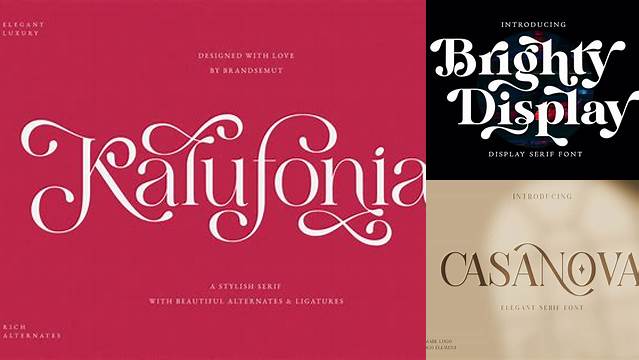
Free Display Serif Fonts: Download & Design Guide
Are you ready to elevate your design game, guys? Today, we're diving headfirst into the world of display serif fonts! And the best part? You can find these beauties with a free download. Forget generic fonts; these are the stars of the show, designed to grab attention and make your text pop. From bold headlines to elegant titles, display serifs bring a touch of sophistication and personality that's hard to beat. So, buckle up, because we're about to explore the best display serif fonts available for free download, perfect for everything from posters to websites.
Exploring the World of Display Serif Fonts: A Deep Dive
Display serif fonts are specifically crafted for larger sizes, perfect for headlines, titles, and short bursts of text. Unlike their text-friendly counterparts, display serifs often boast unique features, exaggerated serifs, and a strong visual impact. These fonts are not designed for lengthy paragraphs; their primary function is to command attention. Imagine a sleek poster, a captivating website header, or a magazine cover that immediately draws the eye. That's the power of a well-chosen display serif. Their design is often bolder and more stylized than standard serif fonts, making them ideal for creative projects where visual impact is crucial. Think of them as the statement pieces in your typography wardrobe. When choosing a display serif, consider the overall tone and message you want to convey. A classic, elegant serif might be perfect for a luxury brand, while a more modern, geometric serif could be ideal for a tech startup. The possibilities are endless, and the right font can significantly enhance your design's appeal. And now, let's talk about how to get your hands on these gems through a free download. Many websites offer a wide variety of display serif fonts, often available for both personal and commercial use. Always double-check the license agreement to ensure you're using the font correctly. Some fonts may require attribution, while others are completely free to use. The key is to find a font that aligns with your project's aesthetic and licensing requirements, then add it to your collection and get ready to see your designs transform. Display serifs are all about making a statement. Get ready to find your perfect font, download it, and watch your designs shine!
Display Serif Font Characteristics: What Sets Them Apart
What makes a display serif font stand out from the crowd? Several key characteristics define these fonts, making them ideal for attention-grabbing headlines and striking visuals. First and foremost, display serifs are designed for larger sizes. This means they often feature bolder strokes, more pronounced serifs, and greater contrast between thick and thin lines. The goal is to ensure readability and impact, even at a glance. The serifs themselves are often more elaborate than those found on text fonts. You might see flared serifs, slab serifs, or unique terminal designs that add a touch of personality and style. These features help to create a distinct visual identity and make the font memorable. Another important characteristic is the overall design concept. Display serifs often reflect a specific aesthetic or mood. Some fonts exude elegance and sophistication, while others lean towards modern, minimalist, or even quirky styles. This diversity allows designers to choose a font that perfectly matches their project's tone and message. The weight of the font is also a significant factor. Many display serifs are available in a range of weights, from light and delicate to bold and heavy. The choice of weight can dramatically affect the font's impact. A bold weight commands immediate attention, while a lighter weight can create a more subtle effect. Finally, the kerning and spacing are crucial. Display serifs require careful attention to letter spacing to ensure optimal readability at large sizes. The designer aims to create a font that is visually appealing and easy to read. Understanding these characteristics will help you choose the perfect display serif font for your project. Always consider the specific design requirements and your desired effect.
Using Display Serif Fonts Effectively in Design
Using display serif fonts effectively requires a strategic approach to design. Think about your design's purpose and target audience before selecting a font. A display serif that works well for a luxury brand might not be the right choice for a children's website. The most common application for display serifs is in headlines, titles, and subheadings. Their bold presence and unique design make them perfect for grabbing attention and conveying important information. Make sure your headlines are clear and easy to read. While display serifs can be visually striking, prioritize legibility. Avoid using overly complex fonts that can be difficult to decipher. Display serifs can also be used for short blocks of text, such as call-to-action buttons, short descriptions, or website taglines. Their distinctive style can add a touch of personality and make your design more memorable. However, it's important to limit their use in body text. Display serifs are often less readable than text fonts when used in long paragraphs, so it's best to use them sparingly. Consider pairing your display serif with a complementary text font. The contrast between a bold display serif and a clean, readable text font can create a visually appealing and balanced design. Experiment with different font pairings to find the perfect combination for your project. And of course, always pay attention to spacing and kerning. Proper spacing ensures readability and visual appeal. Adjust the letter spacing as needed to create a clean and professional look. Display serifs, when used thoughtfully, can be a powerful tool in your design arsenal. They can add a touch of sophistication, personality, and visual impact to your project.
Display Serif vs. Text Serif Fonts: Key Differences
What sets display serif fonts apart from their text-focused counterparts? The key differences lie in their design, intended use, and overall characteristics. Text serif fonts, also known as body text fonts, are designed for readability in long blocks of text. Their letterforms are typically more understated, with a focus on clarity and legibility. The serifs are often more subtle, and the strokes are designed to guide the eye across the page. Display serifs, on the other hand, are designed for impact and visual appeal at larger sizes. Their letterforms are often bolder, with more exaggerated serifs and greater contrast between thick and thin strokes. The goal is to command attention and create a strong visual statement. Text serif fonts are ideal for articles, books, and websites where long-form content is the primary focus. Their readability and consistent design make them easy to read for extended periods. Display serifs are best suited for headlines, titles, and short bursts of text. They excel at capturing attention and conveying a sense of style or personality. Another key difference is the design flexibility. Text serif fonts are generally more conservative in their design, prioritizing readability and clarity. Display serifs offer greater creative freedom, allowing designers to experiment with unique features and stylistic elements. This makes them ideal for projects where visual impact is crucial. In terms of weight and style, text serif fonts often come in a limited range of weights and styles, while display serifs may offer a wider variety of options. The difference is in the purpose. When choosing a font, consider the context. For reading extensive text, choose a text serif font. For making a bold statement, choose a display serif font.
The Psychology of Display Serif Fonts: Impact and Perception
How do display serif fonts impact our perception and influence our emotional responses? Fonts have a remarkable ability to evoke certain feelings and create associations. The choice of a display serif font can significantly impact how a message is received. The characteristics of a display serif font influence these responses. A classic serif with a timeless feel can communicate elegance, trust, and sophistication. The style is often associated with established brands, high-end products, and formal occasions. This association is rooted in cultural norms and the consistent use of these fonts in advertising and design over many decades. On the other hand, a modern, geometric display serif can convey innovation, modernity, and a sense of clean design. This choice often works for tech companies, startups, and brands that want to appear cutting-edge. The perceived message depends on the aesthetic of the font. Display serifs with bold strokes and high contrast can project confidence and authority. This makes them effective for headlines and calls to action. However, these fonts may not be the best choice for every situation. Their assertive tone could be inappropriate for a brand or design. The emotional impact also depends on the context of the design. The same font could be perceived differently depending on the color scheme, imagery, and overall layout. Display serifs create a powerful visual impact. The designer should choose a font that supports the desired emotional response and aligns with the message. They create a meaningful interaction. The visual and emotional impact is essential. The right display serif font can elevate the perception of a brand or design.
Display Serif Font Pairing: Finding the Perfect Match
Finding the perfect pairing for your display serif font is a crucial aspect of creating a visually appealing and effective design. A well-chosen font combination can enhance readability, create visual harmony, and reinforce your message. The goal is to find fonts that complement each other and work together to enhance the overall design. There are several approaches to font pairing. One common method is to pair a display serif with a sans-serif font. This creates a contrast between the two font families. The display serif can be used for headlines and titles, while the sans-serif can be used for body text. This provides both visual interest and readability. Another strategy is to pair fonts from the same font family. This approach can create a sense of cohesion and unity in your design. For example, you might use a bold display serif for the headline and a lighter weight of the same font for subheadings. Consider the style of your display serif when choosing a text font. A classic serif might pair well with a traditional sans-serif, while a modern display serif might work better with a contemporary sans-serif. Experiment with different font combinations to find the perfect match. Make sure both fonts are readable and visually appealing. Always consider the contrast and hierarchy in your design. The display serif should stand out and grab attention, while the text font should be easy to read and support the overall message. Also, it is necessary to test out different combinations. Preview your font pairing in various sizes and contexts to see how they look in action. The perfect font pairing is the one that enhances your design.
Display Serif Fonts in Web Design: Best Practices
Display serif fonts can be incredibly effective in web design when used strategically and in accordance with best practices. The key is to balance visual appeal with user experience. Due to their design, display serifs should primarily be used for headings, titles, and short pieces of text. Their bolder strokes and unique features make them ideal for grabbing attention and creating a strong visual impact. Ensure readability. While display serifs are visually stunning, prioritize readability. Choose fonts that are easy to read at different screen sizes and resolutions. Avoid overly ornate fonts that can be difficult to decipher. Optimize for mobile. With mobile devices, ensure your display serifs are responsive and adapt well to different screen sizes. Test your design on various devices to ensure your text looks great and is easy to read. The font needs to be responsive. Use font sizes wisely. Choose appropriate font sizes for your display serifs to ensure that your headings and titles are prominent without overwhelming the rest of your content. Experiment with different font sizes to find the perfect balance. Consider the color and contrast. The color and contrast of your text against the background significantly affect readability. Make sure your display serifs have enough contrast to stand out and are easy to read. Consider your brand's identity. The display serif font you choose should align with your brand's identity. Choose a font that reflects your brand's values and personality. Display serifs can be a powerful tool in web design. By following these best practices, you can create visually appealing and effective websites. This is the right way to bring a website to life.
Display Serif Font Trends: What's Hot Now
Keeping up with display serif font trends is important for designers. Understanding what's popular helps you to create a project. Trends will vary over time. Some styles become popular. These styles include clean, geometric fonts. There are also more vintage styles. Some are also inspired by the past. As new trends emerge, it's important to choose a font that fits your project. The font you choose should fit the theme. Be aware of current design styles. A design that looks good is essential. Following display serif font trends can give your design a modern edge. Trends will continue to develop. Always consider the style of the project. Display serif fonts will always be important. Trends can inspire creativity.